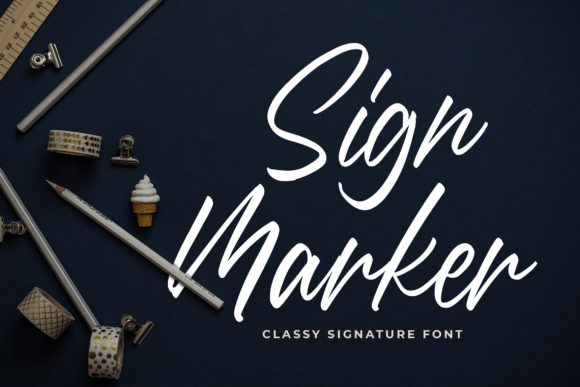
Dive into the enchanting world of Sign Marker Font, a captivating script font crafted by Blankids Studio, and let your creativity run wild. This remarkable font exudes a sweet and charming aura, inviting you to explore its unique style and bring a touch of elegance to your designs.
With Sign Marker Font, you can effortlessly create captivating logos, branding materials, and social media posts that resonate with your audience. Its authentic look and feel add a touch of charm and personality to any project, making it perfect for personal and professional endeavors alike.
Step into a world of infinite possibilities with Sign Marker Font, where your imagination knows no bounds. From handwritten notes to stunning posters, this script font adds a unique touch to every creation. Its versatility makes it a perfect choice for a wide range of projects, from invitations and wedding stationery to product labels and packaging design.
Embrace the allure of Sign Marker Font and embark on a creative journey that will capture hearts and minds. Let your designs blossom with beauty and grace as you explore the endless possibilities this font has to offer.